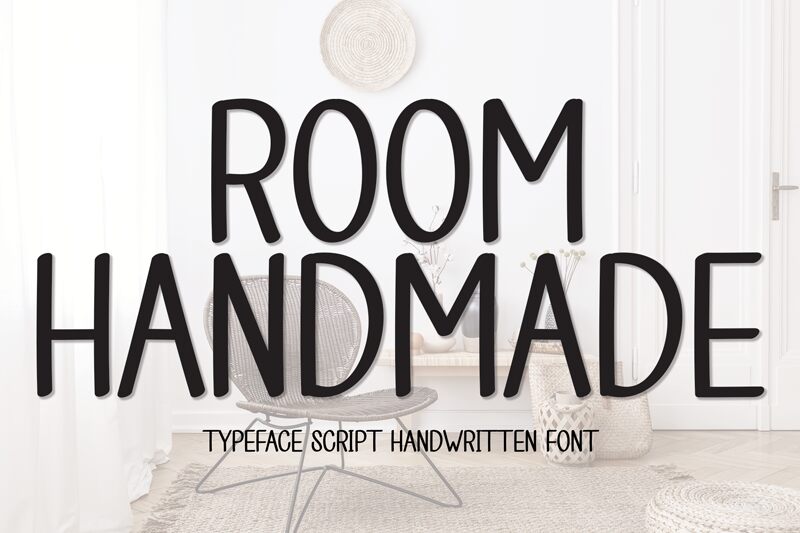
Room Handmade
Room Handmade, crafted by Scratchones, stands out with its unmistakable handwritten charm, exuding warmth and personality. This condensed font feels intimate and cozy, reminiscent of a personal note from a friend. Its strokes carry the idiosyncrasies of genuine penmanship while maintaining readability.
Ideal for design projects that require an organic touch, Room Handmade shines in contexts where a human connection is key. Think bespoke invitations, branding for artisanal products, or any space that benefits from a handmade feel. This font's inviting character ensures it plays well in both print and digital mediums where approachability is paramount.